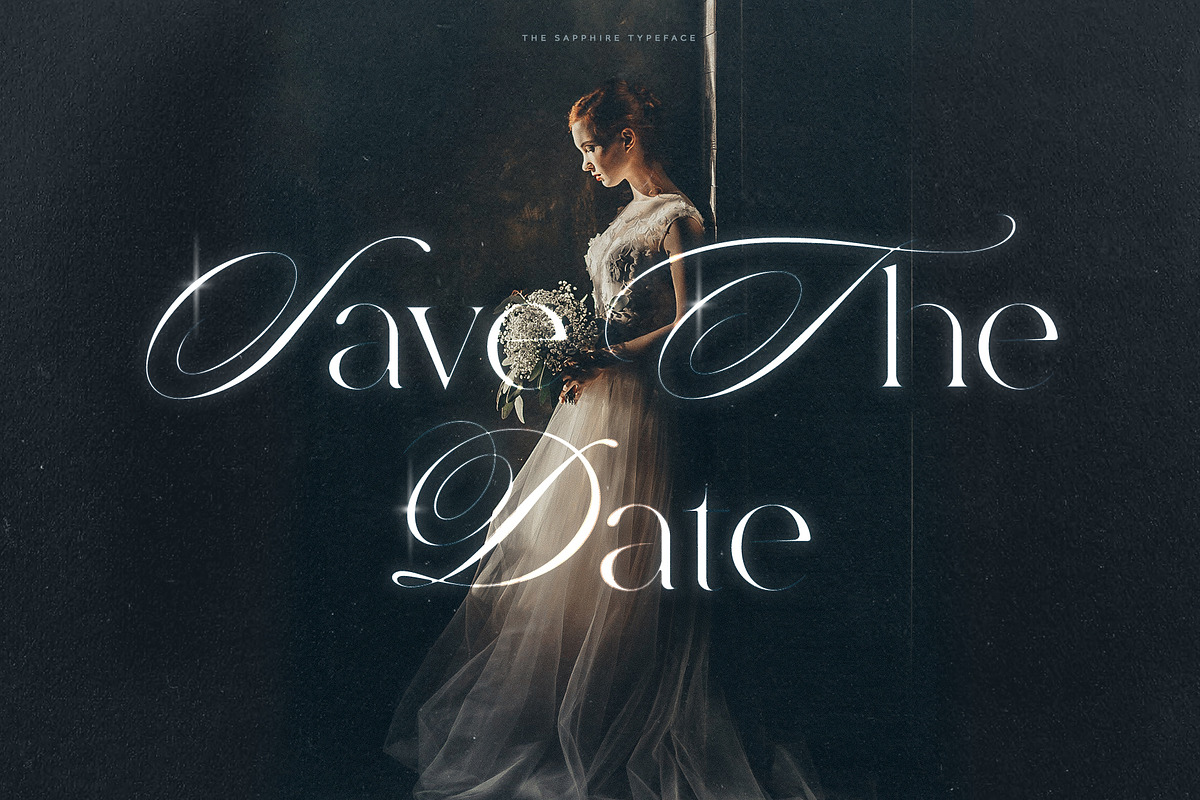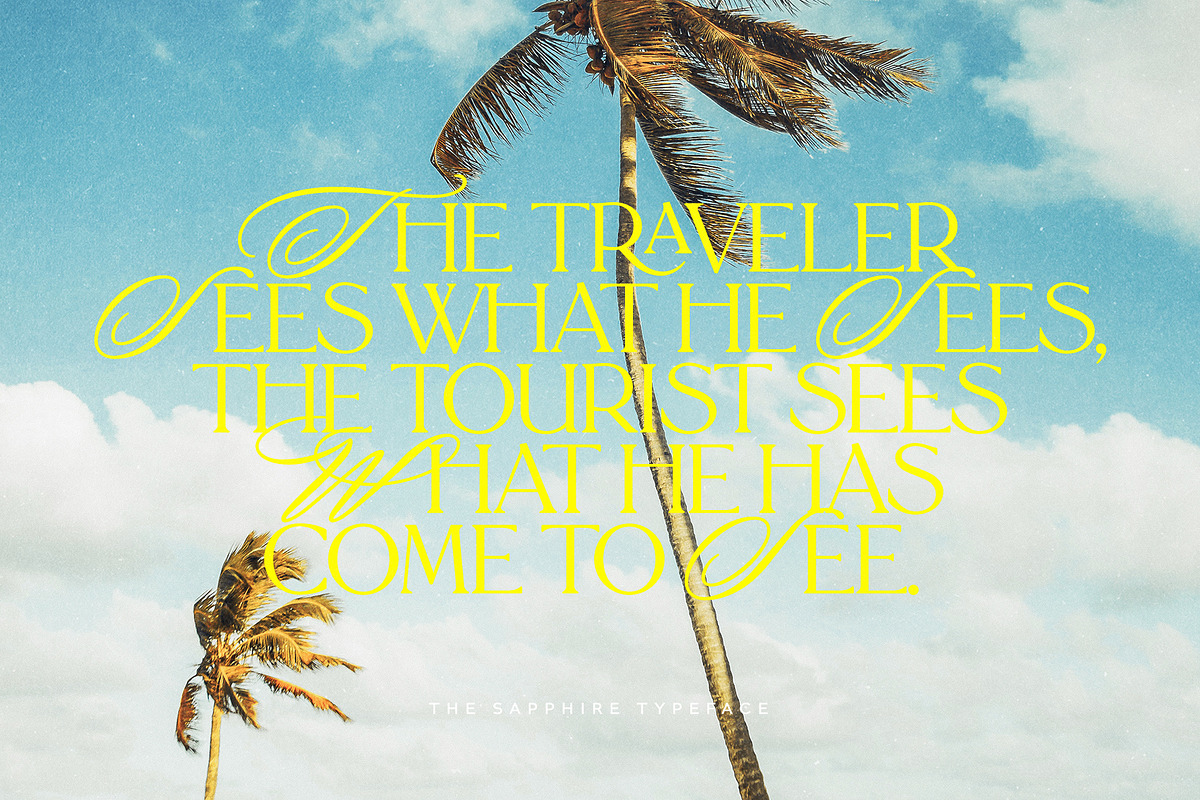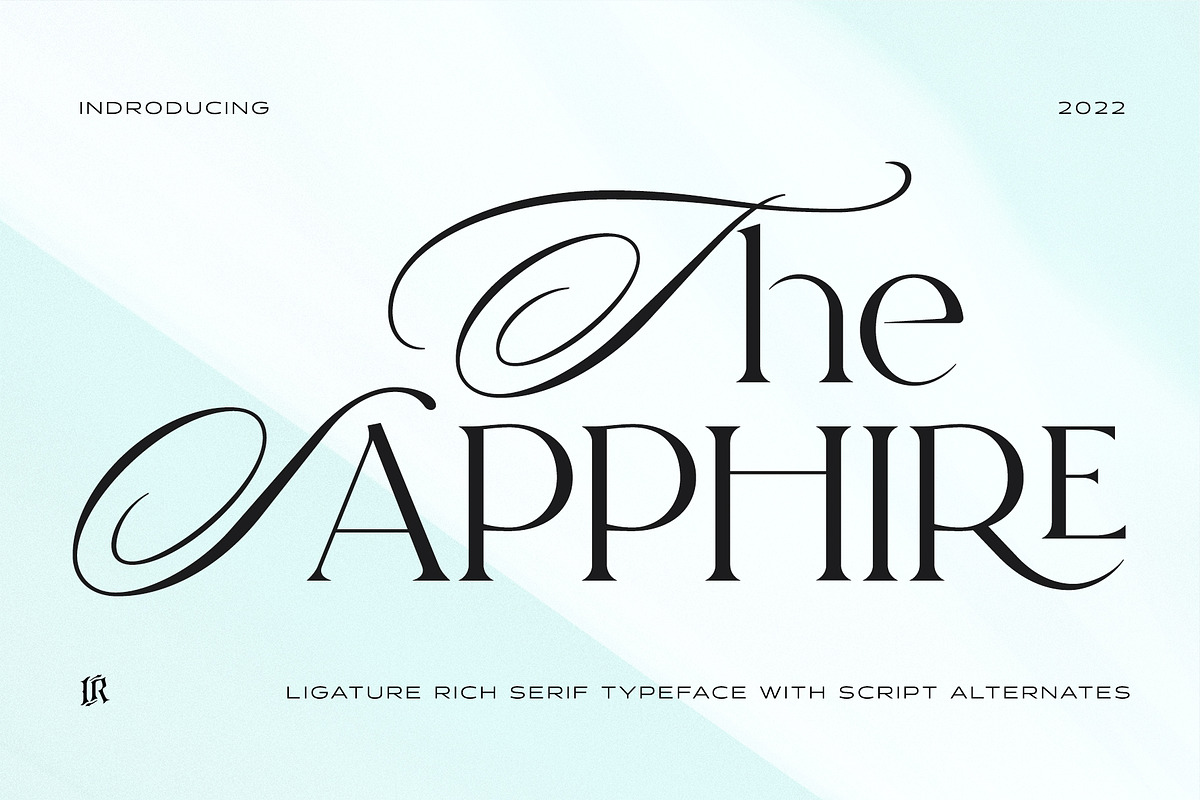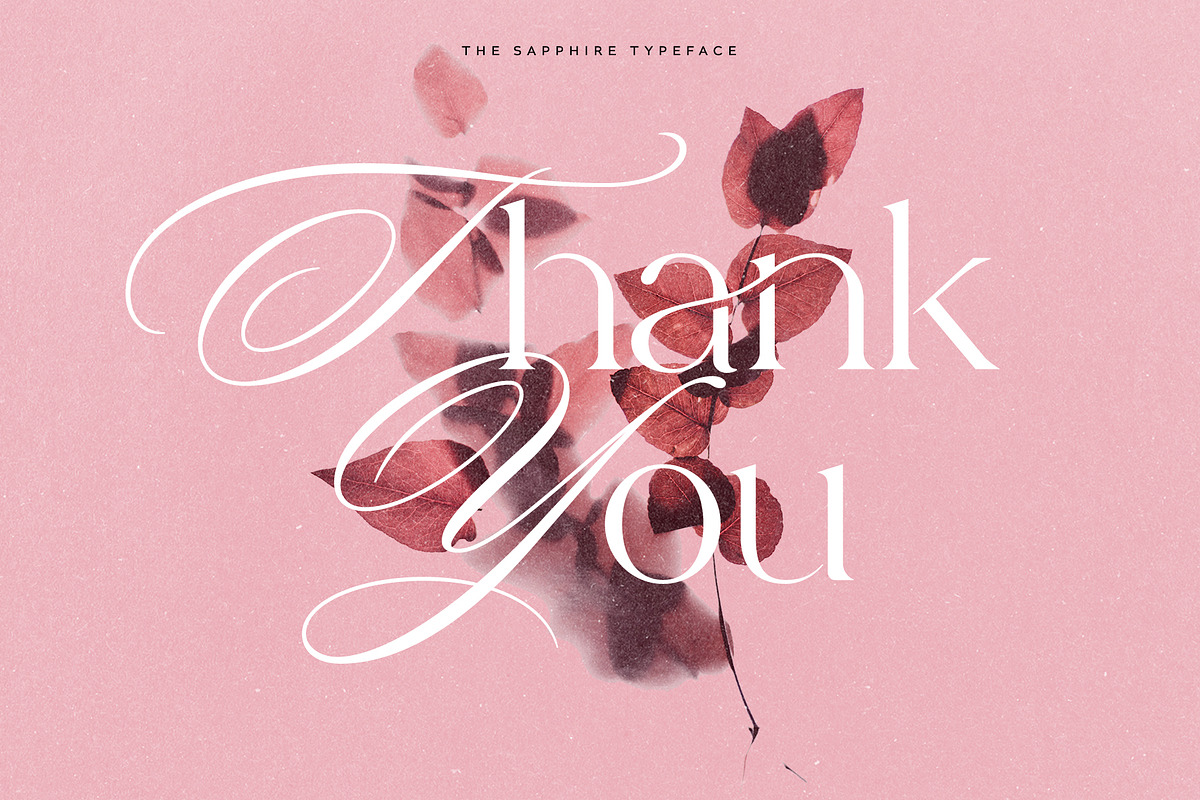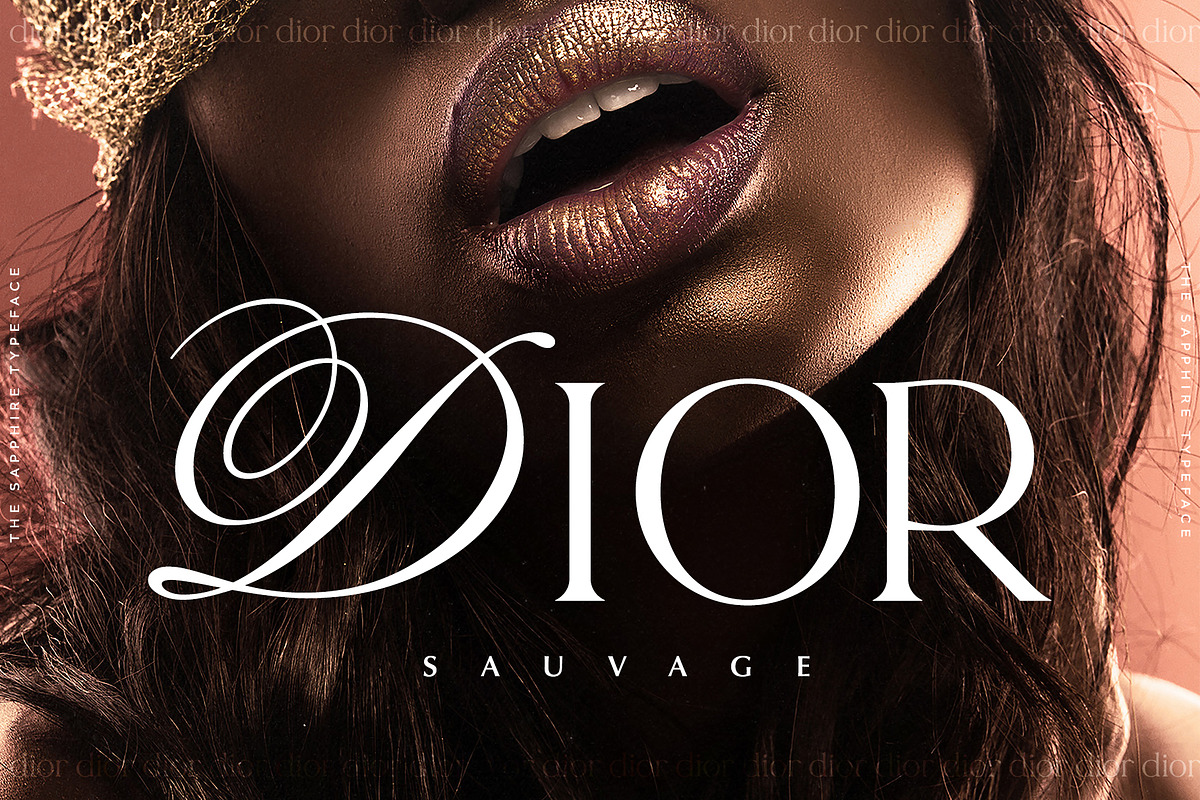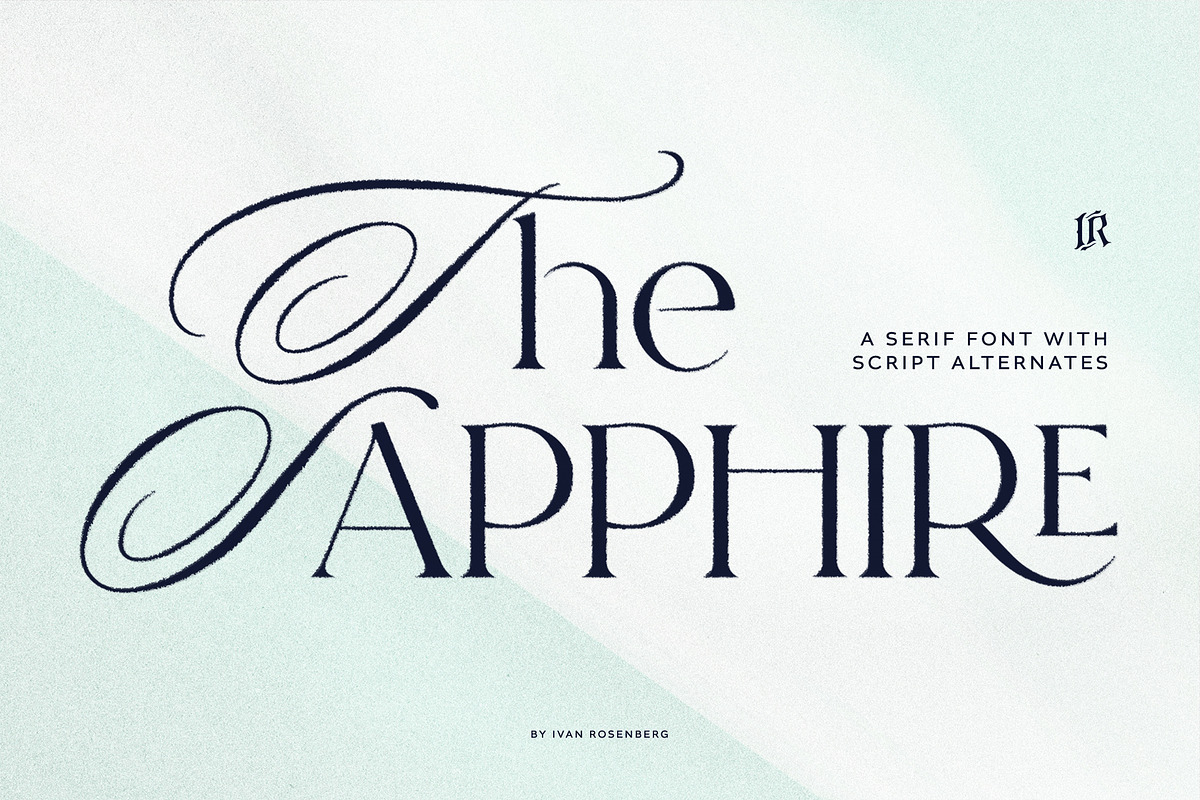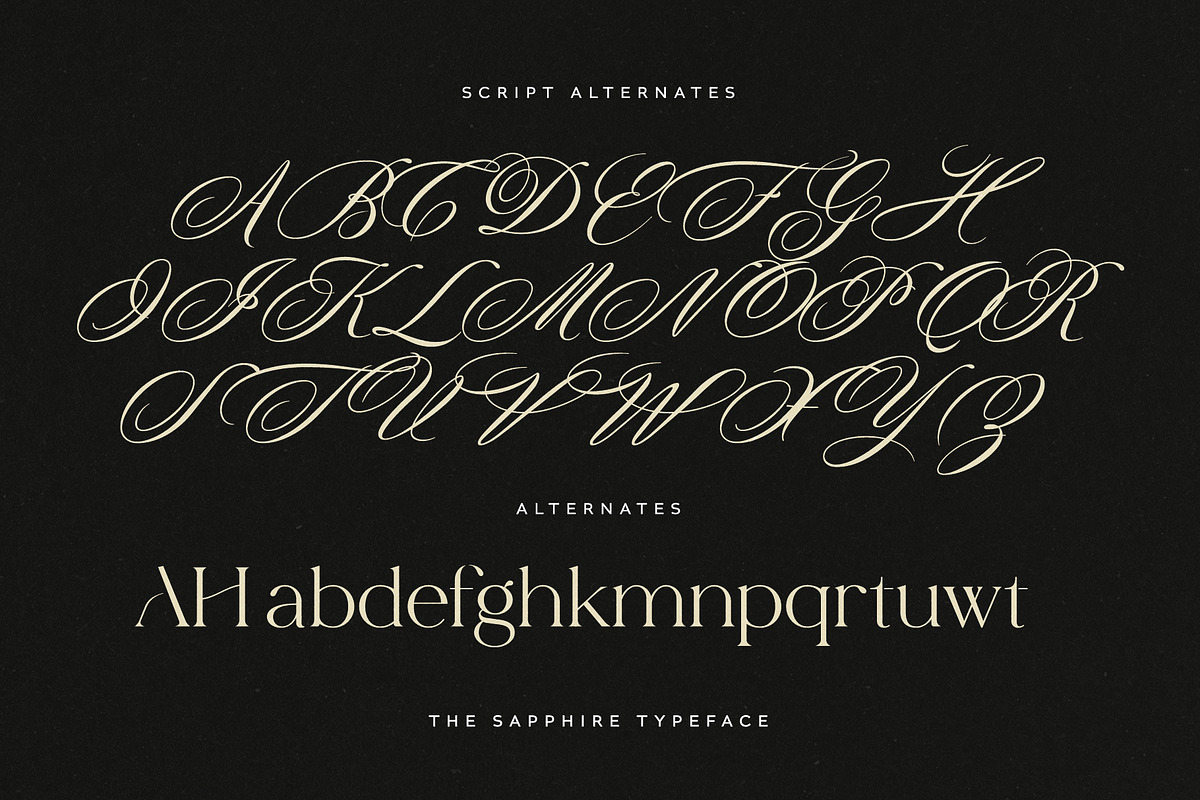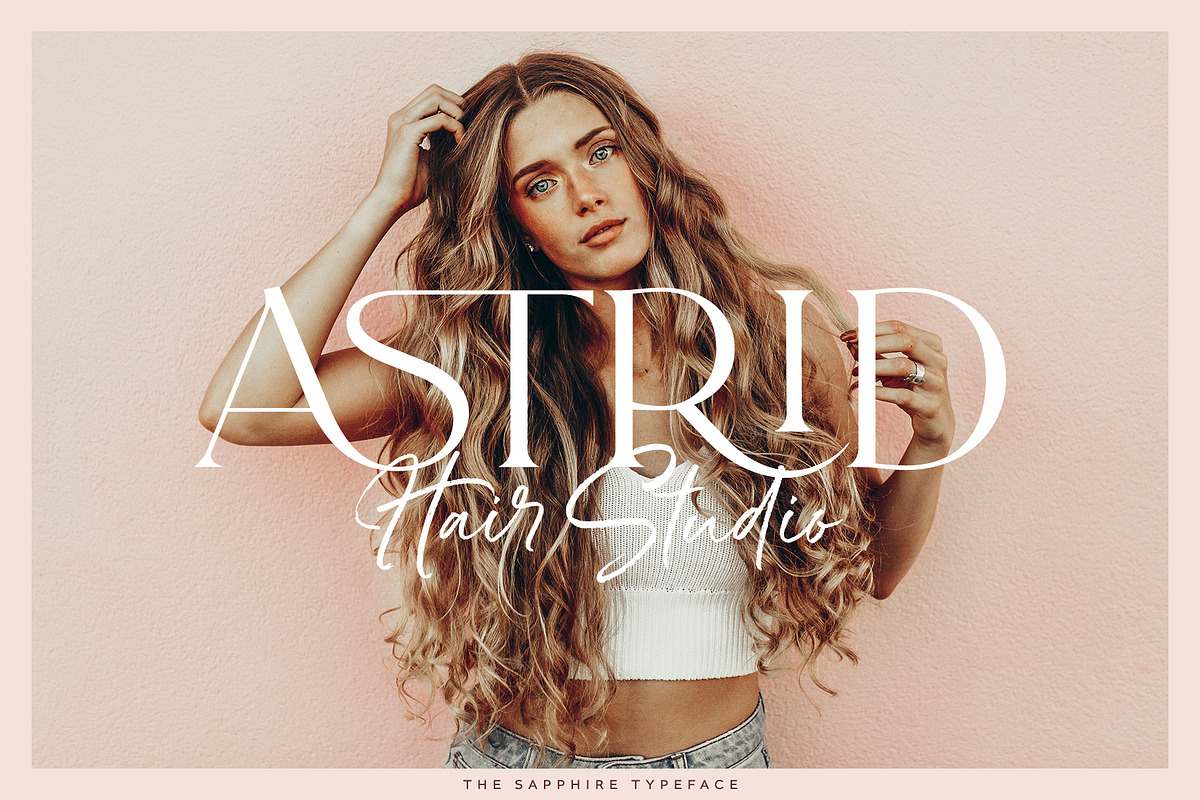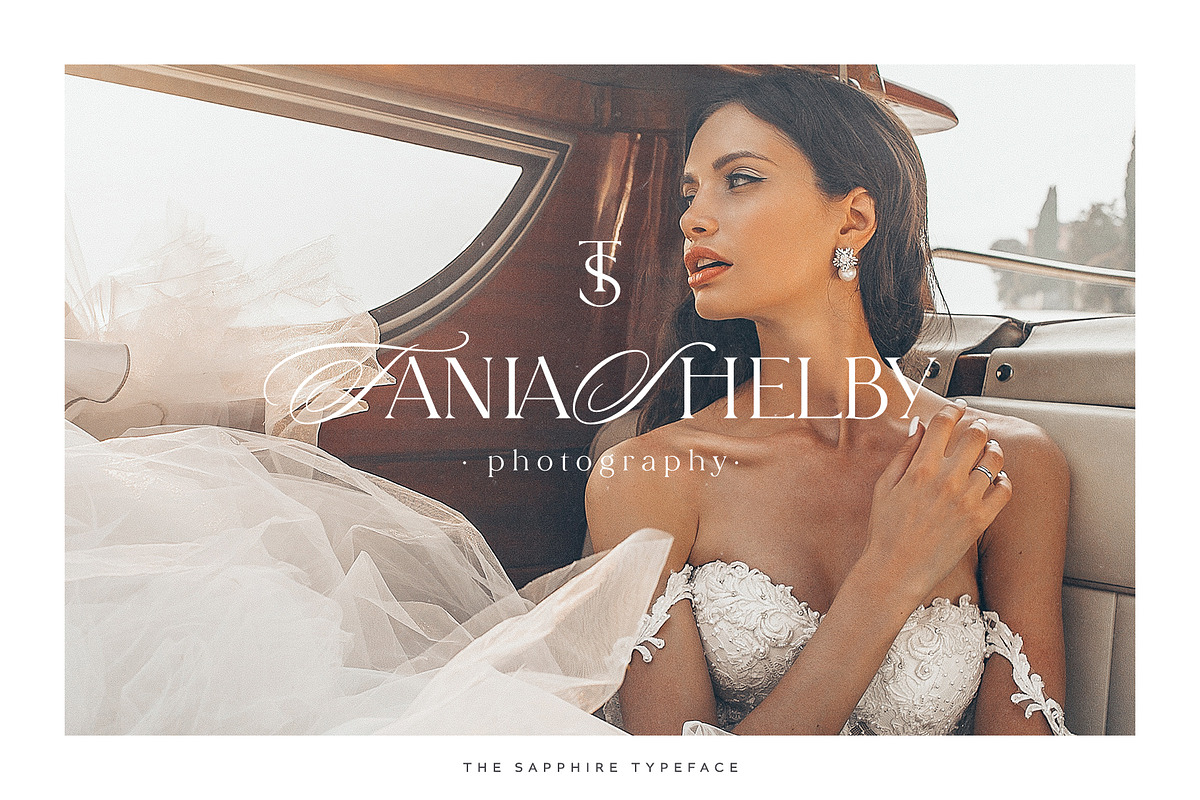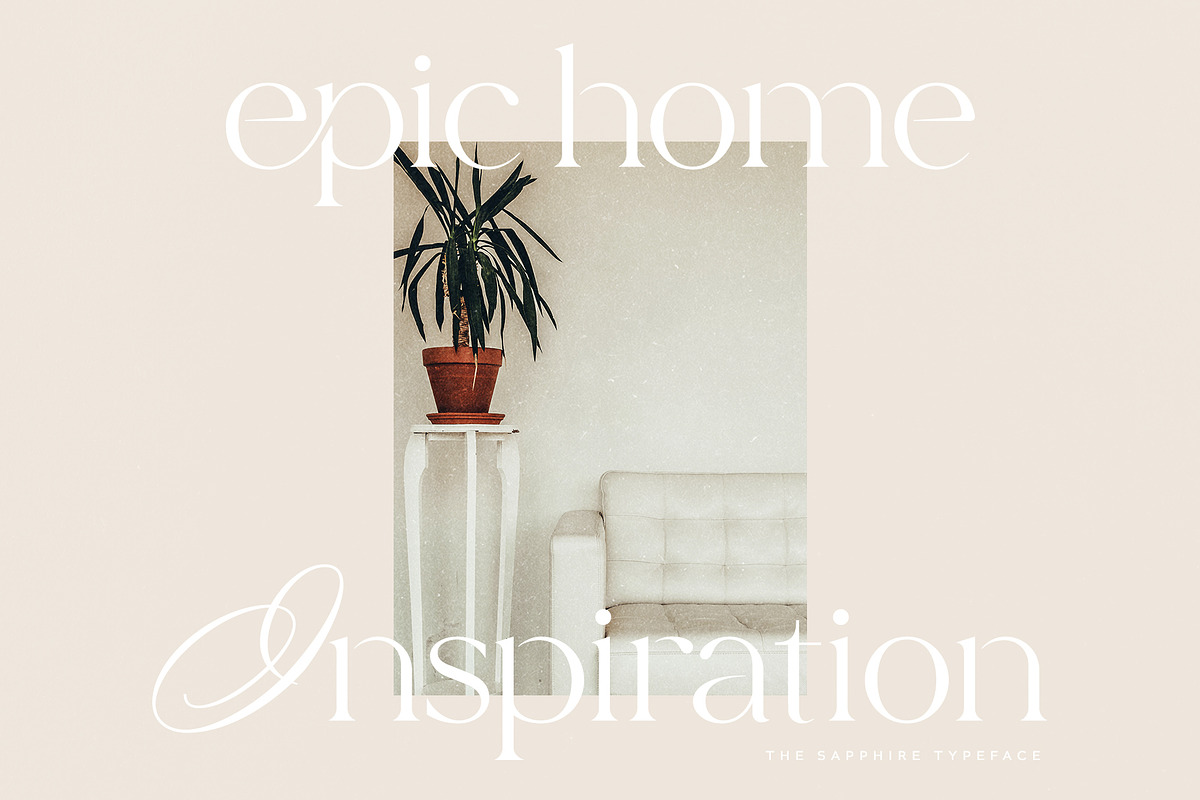
The Sapphire - A Calligraphic Serif
The Sapphire Typeface is a beautiful and royal feel mix of modern serif and classic calligraphy with 78 ligatures. Script letters come as an UPPERCASE glyphs alternates.
The Sapphire Typeface is a serif typeface made mainly for headlines, titles, and other short texts and is well-suited for advertising, vintage mood board, branding, logotypes, packaging, titles, editorial design and modern and vintage design.